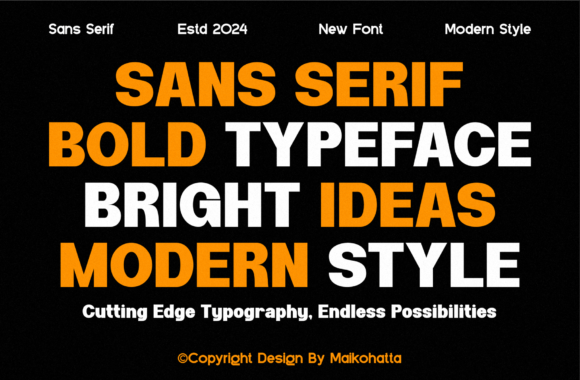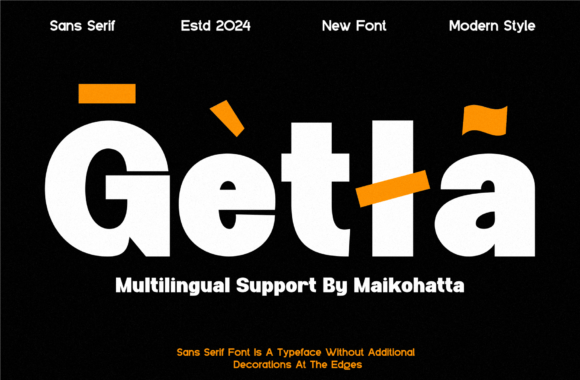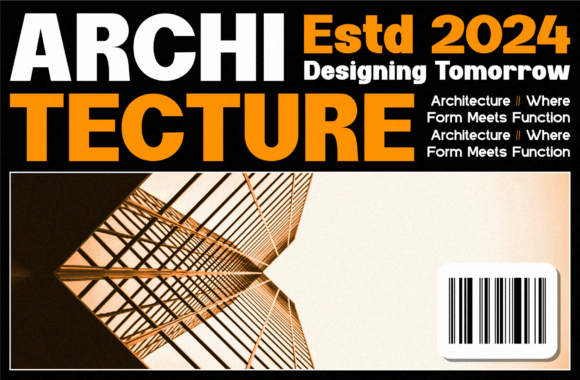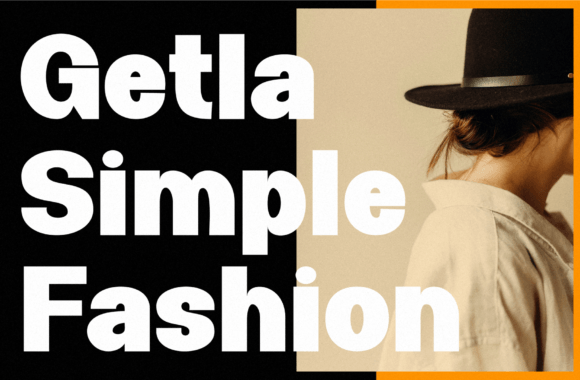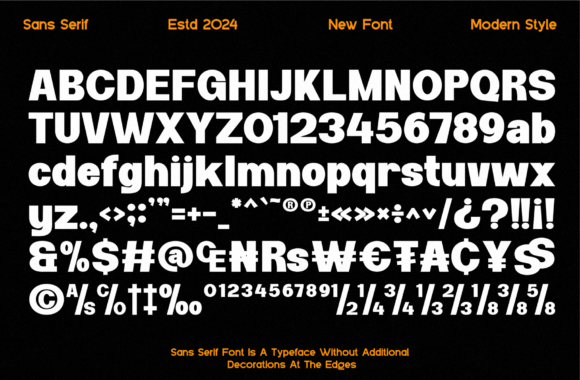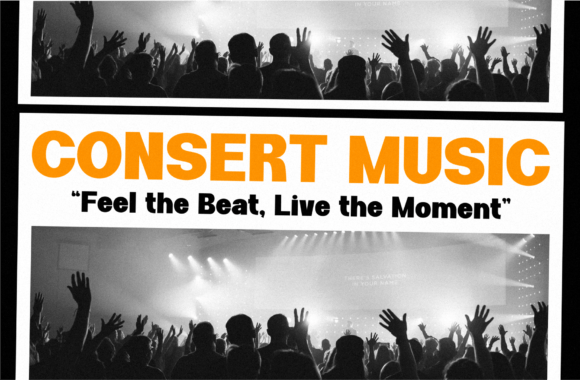
Introducing Getla: The Ultimate Sans Serif Typeface for Modern Design
In the world of graphic design and modern typography, the right font can make all the difference. That’s why we’re excited to introduce our new product, Getla – a versatile sans serif typeface that’s perfect for a wide range of design contexts. With its clean, professional, and contemporary look, Getla is set to become a go-to choice for designers and crafters looking to elevate their designs.
What Makes Getla Special?
Getla’s greatest strength lies in its flexibility. This font is designed to adapt seamlessly to various design projects, from branding and advertising to digital interfaces and print materials. Its simplicity and visual appeal make it an excellent choice for designers who want to convey a sense of modernity and sophistication.
Key Features of Getla Font
• Clean and Professional Look: Getla’s sans serif design ensures that your text is easy to read, making it perfect for body text, headings, and titles.
• Contemporary Aesthetic: The font’s sleek lines and curves give it a modern feel that’s perfect for brands and designers looking to make a statement.
• Versatility: Getla can be used in a variety of design contexts, from digital platforms to print materials, and from elegant branding to bold advertising.
• Simplicity: The font’s simple design ensures that it pairs well with other design elements, making it easy to integrate into your existing design workflow.
Why Choose Getla for Your Design Projects?
With so many fonts available, why choose Getla? Here are just a few reasons why designers and crafters are falling in love with this versatile typeface:
• Enhance Readability: Getla’s clear and concise design ensures that your text is easy to read, making it perfect for long-form content, such as articles, blog posts, and books.
• Elevate Your Brand: With Getla, you can create a professional and modern brand identity that sets you apart from the competition.
• Streamline Your Workflow: The font’s simplicity and versatility make it easy to use across multiple design projects, saving you time and effort.
How to Use Getla in Your Design Projects
Using Getla in your design projects is easy. Here are a few tips to get you started:
• Pair it with Other Fonts: Getla pairs well with other sans serif fonts, as well as serif fonts, making it easy to create a unique and harmonious typography system.
• Experiment with Font Sizes: Getla’s clear design ensures that it remains legible at various font sizes, making it perfect for use in headlines, subheadings, and body text.
• Play with Colors: The font’s simple design makes it easy to use with a wide range of colors, from bold and bright to subtle and muted.
In conclusion, Getla is a versatile sans serif typeface that’s perfect for designers and crafters looking to elevate their designs. With its clean, professional, and contemporary look, Getla is set to become a go-to choice for a wide range of design projects. Whether you’re looking to create a modern brand identity, design a website, or craft a beautiful print project, Getla is the perfect choice.